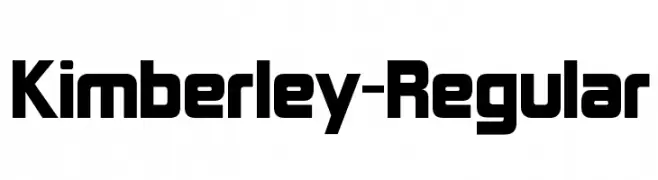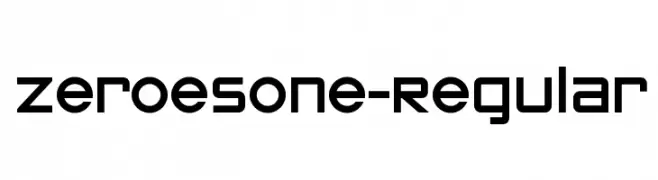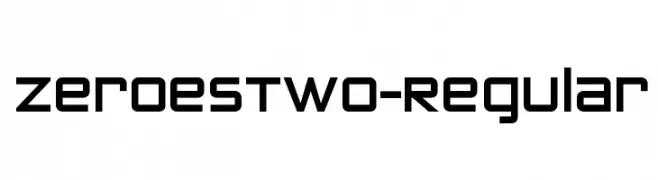
A modern, geometric font with bold, rounded characters.
A bold, futuristic font with geometric shapes and rounded edges.
A modern, geometric font with clean lines and a structured, monospaced appearance.
A modern, geometric font with clean lines and a structured appearance.
A geometric, modern font with clean lines and sharp angles.
A bold, italicized font with dynamic, slanted characters and a sense of motion.
A bold, geometric font with a vintage poster style.
A bold, geometric font with a futuristic double-line style.
Bold, serif numerals enclosed in black circles for high visibility.